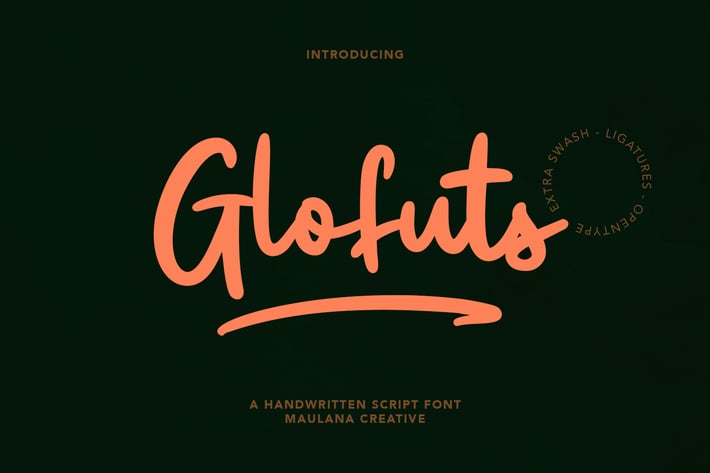
Glofuts Handwritten Script Font
Glofuts is a handwritten script font. With clean rounded stroke and fun character. It has Opentype features of ligatures and extra swash, To give you an extra creative work. Glofuts handwritten script font support multilingual more than 100+ language. This font is good for logo design, Social media, Movie Titles, Books Titles, a short text even a long text letter and good for your secondary text font with sans or serif. Make a stunning work with Glofuts handwritten script font.